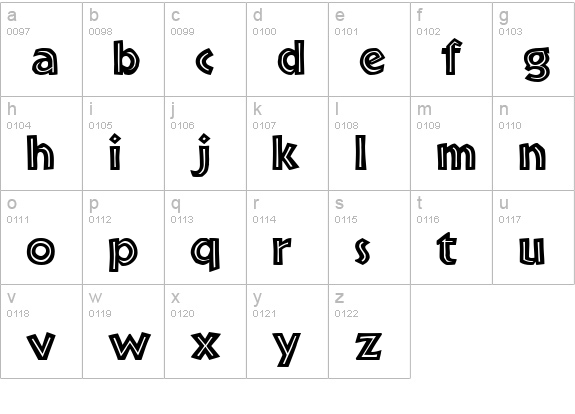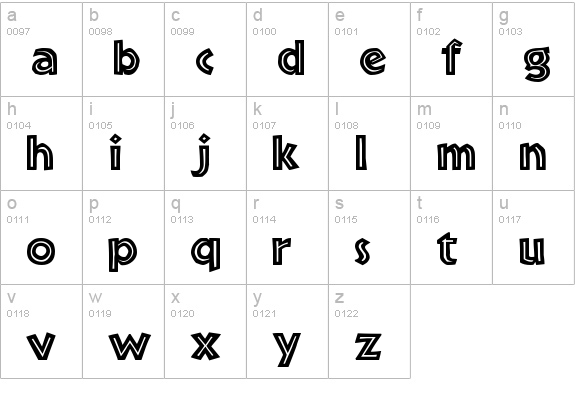
Bride Inline Font Details
Bride Inline font is an elegant and sophisticated typeface that exudes charm and grace. With its delicate lines and intricate details, this font is perfect for adding a touch of sophistication to any project. The Bride Inline font features a unique design that is both modern and timeless, making it ideal for wedding invitations, greeting cards, and other special occasions. What sets the Bride Inline font apart is its versatility - it can be used for both formal and informal designs, adding a touch of elegance to any project. Whether you're creating a romantic wedding invitation or a stylish logo, this font is sure to make a statement. Best of all, the Bride Inline font is available for free download at FontsMarket.com. So whether you're a professional designer or a DIY enthusiast, you can easily access this beautiful font and add a touch of sophistication to your projects. Download the Bride Inline font today and bring a touch of elegance to your designs.